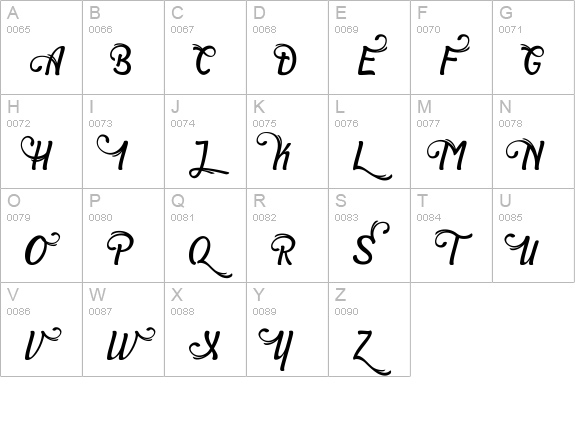
Symphony-Alternate is a beautifully crafted font that exudes elegance and sophistication. With its intricate details and flowing curves, this typeface is perfect for adding a touch of luxury to your designs. The alternate version of Symphony offers a unique twist, providing a more dynamic and artistic feel to your projects. Best of all, Symphony-Alternate is completely free to download at FontsMarket.com. Whether you're working on a branding project, wedding invitation, or any other creative endeavor, this font will surely make a statement. Don't miss out on the opportunity to enhance your designs with the stunning Symphony-Alternate font today!